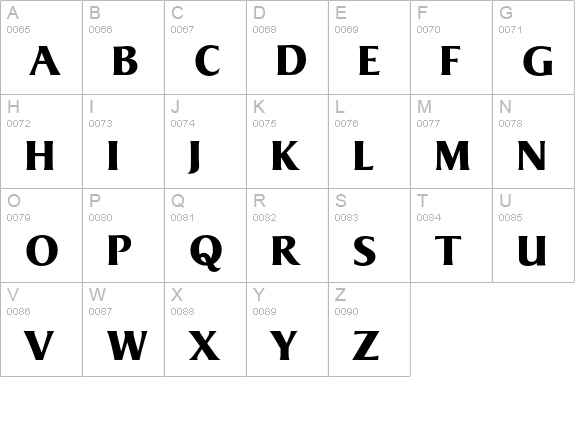
Sigvar-Bold is a strong, high-contrast variant in the Sigvar typeface family \xE2\x80\x94 well suited to headlines, attention-grabbing titles, and strong calls-to-action.
Introducing Sigvar-Bold, a dynamic and versatile font that exudes confidence with every stroke. This font is perfect for making a bold statement in your designs, whether it's for posters, logos, or headlines. With its strong and impactful letterforms, Sigvar-Bold commands attention and leaves a lasting impression. What sets Sigvar-Bold apart is not only its exceptional design but also its accessibility. As a font that embraces inclusivity, Sigvar-Bold is freely available to download at FontsMarket.com. This means that designers, creatives, and enthusiasts alike can enjoy the benefits of this exceptional font without any constraints. Sigvar-Bold offers a wide range of characters, allowing you to express your creativity and communicate your message with clarity. Its clean lines and distinct shapes make it highly legible, even at smaller sizes. This makes it ideal for both print and digital media, ensuring that your message is effectively conveyed across various platforms. The versatility of Sigvar-Bold is another standout feature. Whether you're aiming for a modern and edgy look or a classic and timeless aesthetic, this font adapts effortlessly to your design needs. Its strong presence and seamless integration into any project make it a must-have for any designer's toolkit. With Sigvar-Bold, you have the freedom to explore and experiment, pushing the boundaries of your creativity. Its availability as a free download at FontsMarket.com further enhances this sense of liberation, allowing you to effortlessly access this exceptional font and unleash your imagination. In conclusion, Sigvar-Bold is a powerful and versatile font that captures attention and delivers your message with impact. Its accessibility as a free download at FontsMarket.com ensures that everyone can experience the benefits of this exceptional font. So, why wait? Take advantage of this opportunity and elevate your designs with Sigvar-Bold today!